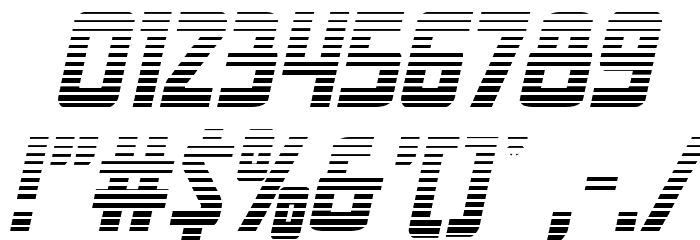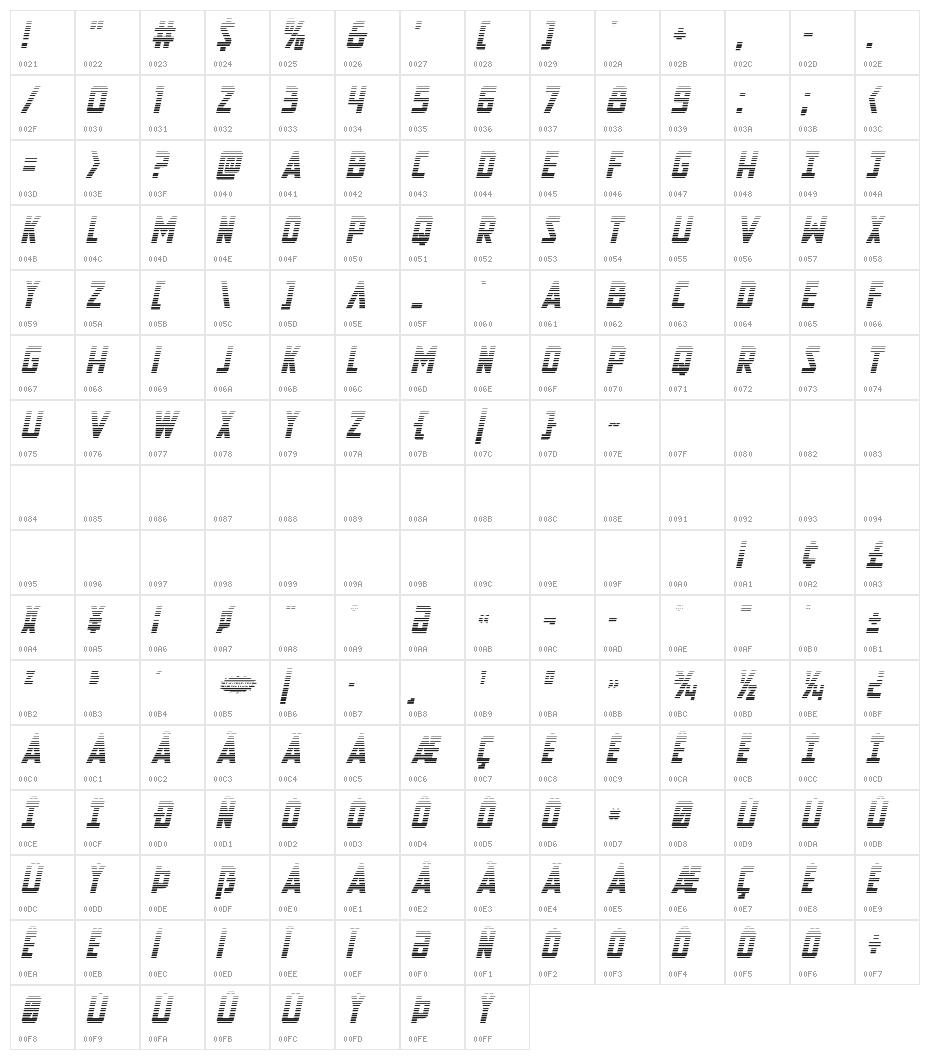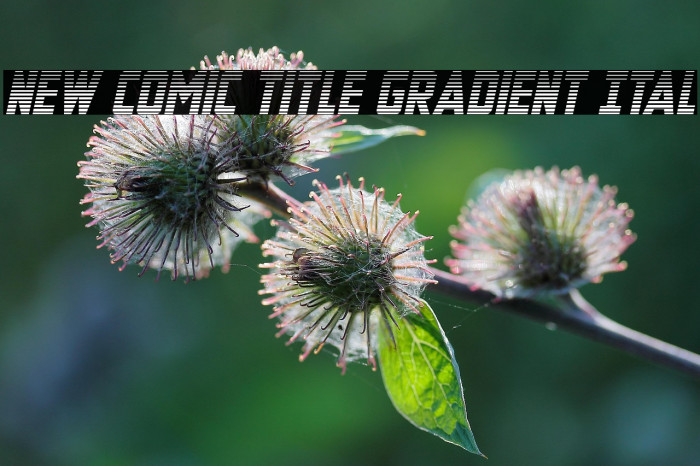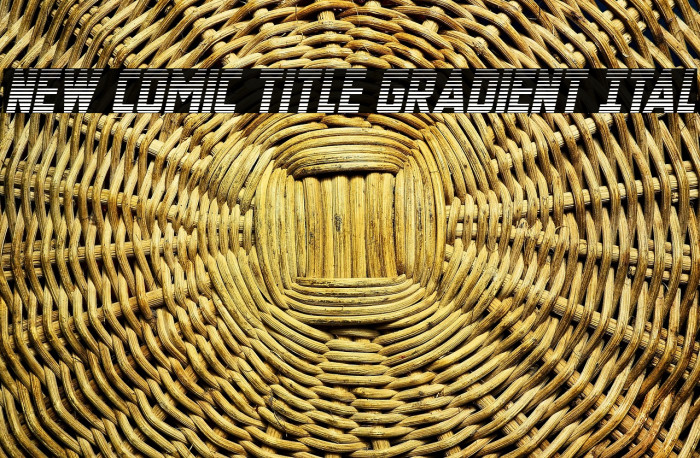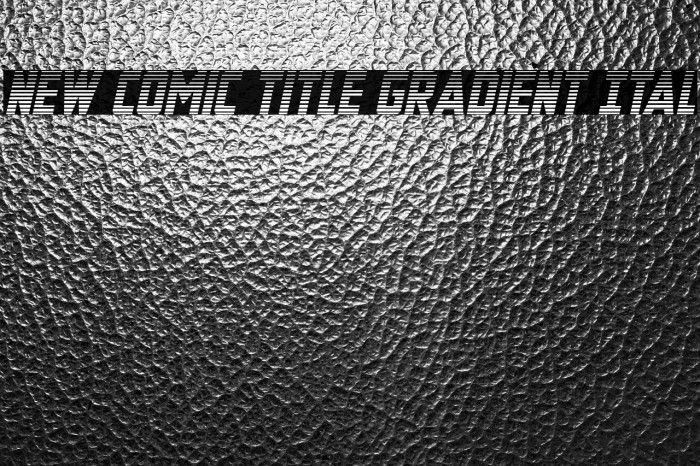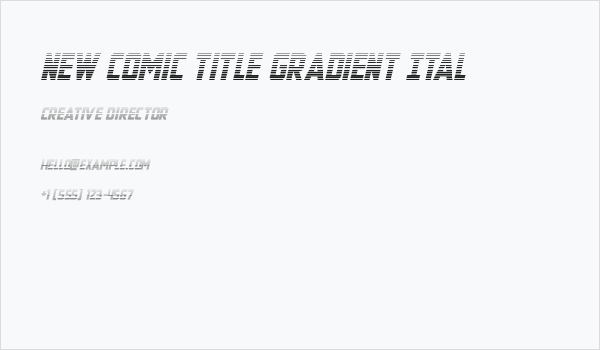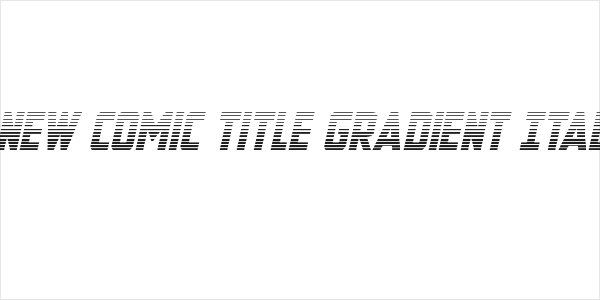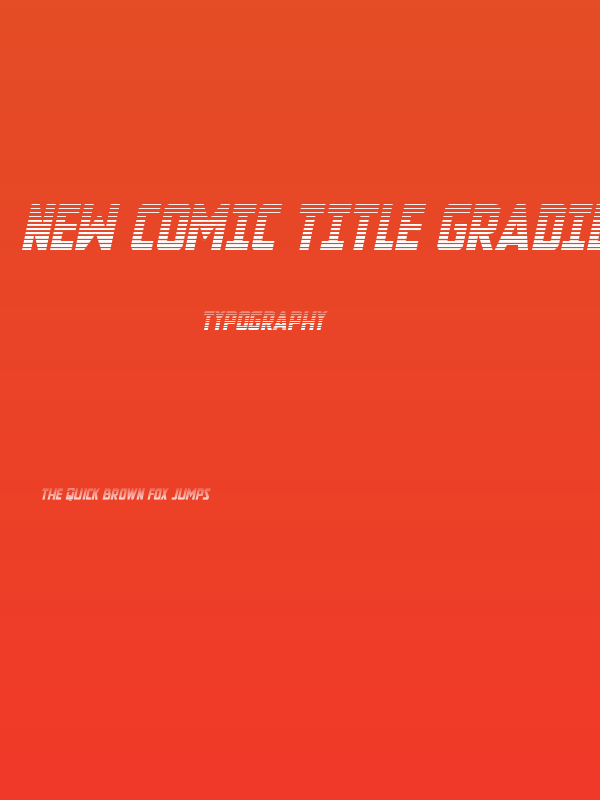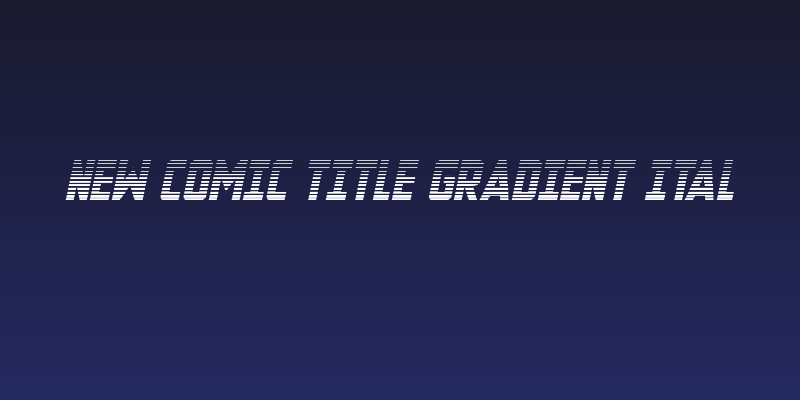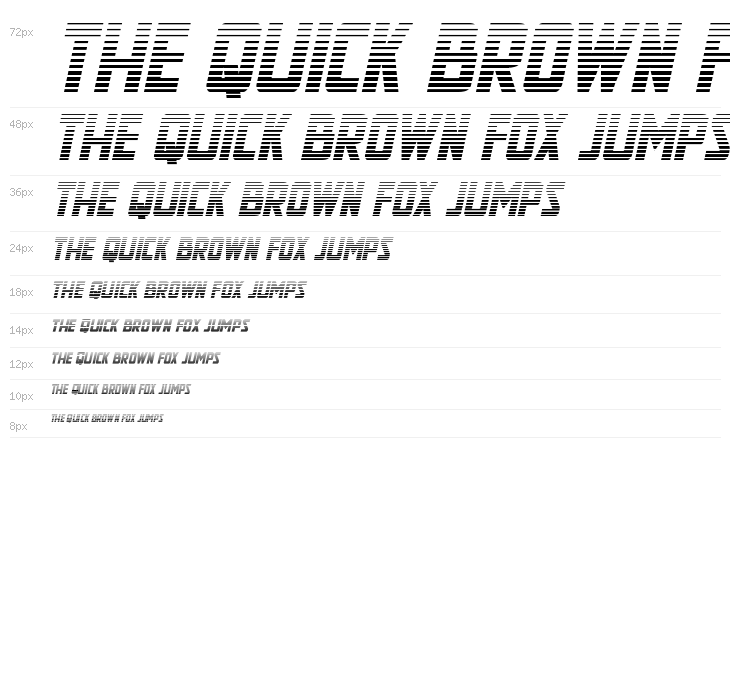
New Comic Title Gradient Ital Font
New Comic Title Gradient Ital Description
This font features a bold, dynamic style with a distinct gradient effect that gives each character a sense of movement and energy. The letters are italicized, adding to the impression of speed and modernity. The design incorporates horizontal lines that create a striped pattern, enhancing the visual impact and making it ideal for attention-grabbing headlines. The uppercase and lowercase letters maintain a consistent style, while the numerals and special characters are crafted to match the overall aesthetic. This font is perfect for projects that require a futuristic or sporty look.